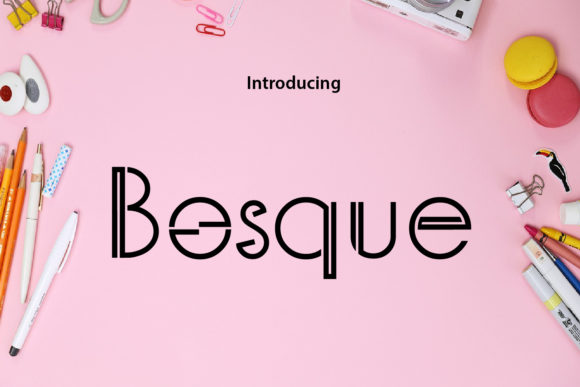
I still remember the frustration of working on a project, pouring my heart and soul into every detail, only to get stuck on one thing: the font. I was designing a futuristic logo for a tech startup, and nothing seemed to fit. That was until I stumbled upon Bosque Font. It was like a breath of fresh air – minimalist, futuristic, and perfect for my design. In this article, I’ll share my experience with Bosque, its features, and how to make the most of it in your designs.
A First Impression: What I Love About Bosque Font
Bosque Font has quickly become a staple in my design toolkit, and for good reason. Here are a few things that I love about it:
- ✨ Minimalist yet futuristic: Bosque’s clean lines and geometric shapes make it perfect for modern designs that require a touch of futurism.
- ✅ Highly legible: Despite its minimalist design, Bosque is incredibly easy to read, even at small sizes.
- 💡 Versatile: Bosque works well for a wide range of design projects, from logos and branding to headings and titles.
No font is perfect, and Bosque is no exception. Here are a few things to keep in mind:
- 🤔 Limited use for body text: While Bosque is great for headings and titles, it’s not the best choice for body text due to its minimalist design.
- ⚠️ Some characters may require adjustment: Depending on the project, you may need to adjust the spacing or kerning of certain characters to get the desired look.
The Story Behind Bosque Font
Bosque Font was designed with the goal of creating a clean, minimalist font that would be perfect for modern designs. The designer wanted to create a font that would be both highly legible and visually striking, with a futuristic feel that would make it stand out from other fonts. The result is a font that’s both versatile and stylish, making it perfect for a wide range of design projects.
| Font Name | Bosque Font |
| Author | da_only_aan |
| What is Bosque Font? | Bosque Font is a minimalist and futuristic display font designed for modern designs. |